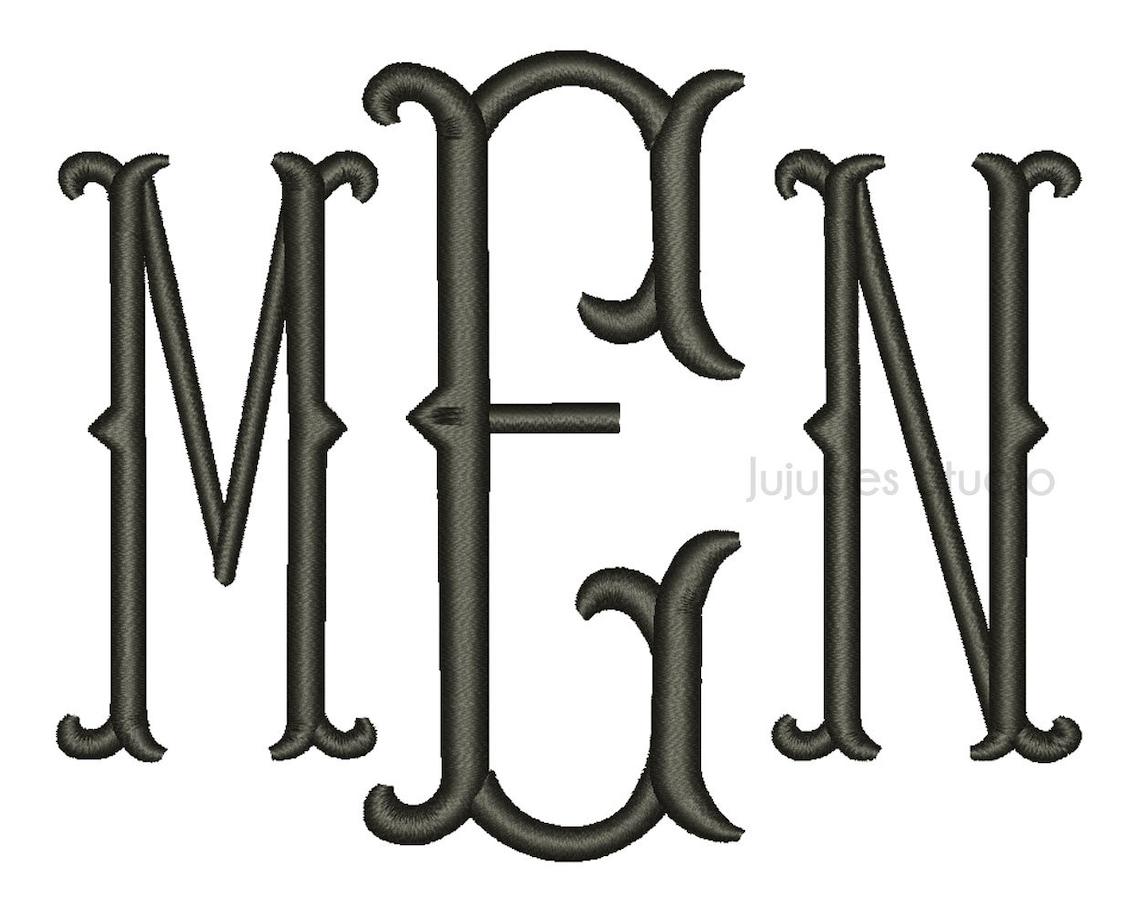
Monogram Fonts Single Letter . if you love monograms you will love my collection of 30 of the best free monogram fonts! a monogram is a combination of two or more letters to form a single symbol. So many to choose from,. our monogram maker 3 letters generator is the best free source for creating 1 letter, 2 letter and 3 letter monogram designs. This is by far the largest category type for monograms. Letters can be formed by overlapping or simply connecting letters. a monogram is a symbol of a person’s initials, created using a decorative, uppercase font, often in a circle format. unlock your creativity with our free monogram fonts! While there are many single monogram graphics out there, there are limited ones that have been turned into fonts. Perfect for personalizing gifts, stationery, decor, and more. use our free online monogram initials generator to create your custom monogram initials in any style.
if you love monograms you will love my collection of 30 of the best free monogram fonts! This is by far the largest category type for monograms. a monogram is a combination of two or more letters to form a single symbol. Perfect for personalizing gifts, stationery, decor, and more. use our free online monogram initials generator to create your custom monogram initials in any style. While there are many single monogram graphics out there, there are limited ones that have been turned into fonts. Letters can be formed by overlapping or simply connecting letters. unlock your creativity with our free monogram fonts! our monogram maker 3 letters generator is the best free source for creating 1 letter, 2 letter and 3 letter monogram designs. So many to choose from,.
Monogram Fonts Single Letter Perfect for personalizing gifts, stationery, decor, and more. a monogram is a combination of two or more letters to form a single symbol. So many to choose from,. Perfect for personalizing gifts, stationery, decor, and more. a monogram is a symbol of a person’s initials, created using a decorative, uppercase font, often in a circle format. This is by far the largest category type for monograms. if you love monograms you will love my collection of 30 of the best free monogram fonts! While there are many single monogram graphics out there, there are limited ones that have been turned into fonts. our monogram maker 3 letters generator is the best free source for creating 1 letter, 2 letter and 3 letter monogram designs. use our free online monogram initials generator to create your custom monogram initials in any style. unlock your creativity with our free monogram fonts! Letters can be formed by overlapping or simply connecting letters.
Single letter Monograms Monogram letters, Single letter, Lettering Monogram Fonts Single Letter unlock your creativity with our free monogram fonts! a monogram is a symbol of a person’s initials, created using a decorative, uppercase font, often in a circle format. This is by far the largest category type for monograms. our monogram maker 3 letters generator is the best free source for creating 1 letter, 2 letter and 3. Monogram Fonts Single Letter.
Monogram Fonts Single Letter Letters can be formed by overlapping or simply connecting letters. our monogram maker 3 letters generator is the best free source for creating 1 letter, 2 letter and 3 letter monogram designs. This is by far the largest category type for monograms. if you love monograms you will love my collection of 30 of the best free monogram. Monogram Fonts Single Letter.
Monogram Fonts Single Letter unlock your creativity with our free monogram fonts! While there are many single monogram graphics out there, there are limited ones that have been turned into fonts. use our free online monogram initials generator to create your custom monogram initials in any style. a monogram is a combination of two or more letters to form a single. Monogram Fonts Single Letter.
Monogram Fonts Single Letter a monogram is a symbol of a person’s initials, created using a decorative, uppercase font, often in a circle format. use our free online monogram initials generator to create your custom monogram initials in any style. Perfect for personalizing gifts, stationery, decor, and more. While there are many single monogram graphics out there, there are limited ones that. Monogram Fonts Single Letter.
Monogram Fonts Single Letter use our free online monogram initials generator to create your custom monogram initials in any style. unlock your creativity with our free monogram fonts! While there are many single monogram graphics out there, there are limited ones that have been turned into fonts. if you love monograms you will love my collection of 30 of the best. Monogram Fonts Single Letter.
Monogram Fonts Single Letter a monogram is a symbol of a person’s initials, created using a decorative, uppercase font, often in a circle format. While there are many single monogram graphics out there, there are limited ones that have been turned into fonts. This is by far the largest category type for monograms. Perfect for personalizing gifts, stationery, decor, and more. So many. Monogram Fonts Single Letter.
Monogram Fonts Single Letter our monogram maker 3 letters generator is the best free source for creating 1 letter, 2 letter and 3 letter monogram designs. This is by far the largest category type for monograms. unlock your creativity with our free monogram fonts! Perfect for personalizing gifts, stationery, decor, and more. While there are many single monogram graphics out there, there. Monogram Fonts Single Letter.
Monogram Fonts Single Letter a monogram is a combination of two or more letters to form a single symbol. a monogram is a symbol of a person’s initials, created using a decorative, uppercase font, often in a circle format. Perfect for personalizing gifts, stationery, decor, and more. While there are many single monogram graphics out there, there are limited ones that have. Monogram Fonts Single Letter.
22 Free Monogram Fonts for Cricut and Silhouette Users Creative Fabrica Monogram Fonts Single Letter While there are many single monogram graphics out there, there are limited ones that have been turned into fonts. Perfect for personalizing gifts, stationery, decor, and more. unlock your creativity with our free monogram fonts! use our free online monogram initials generator to create your custom monogram initials in any style. a monogram is a symbol of. Monogram Fonts Single Letter.
Monogram Fonts Single Letter if you love monograms you will love my collection of 30 of the best free monogram fonts! So many to choose from,. This is by far the largest category type for monograms. unlock your creativity with our free monogram fonts! While there are many single monogram graphics out there, there are limited ones that have been turned into. Monogram Fonts Single Letter.